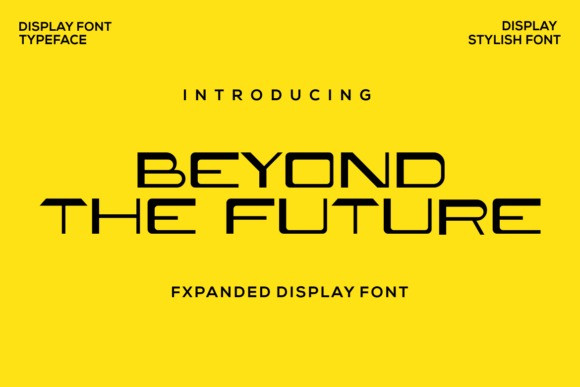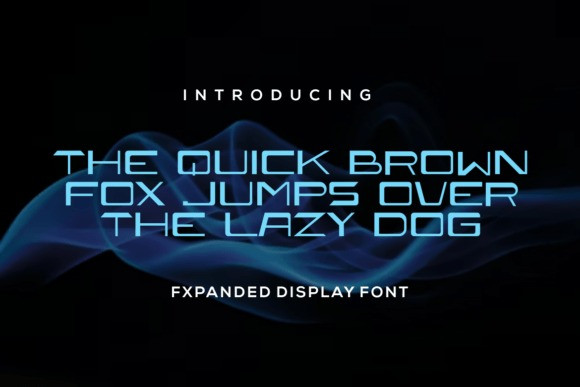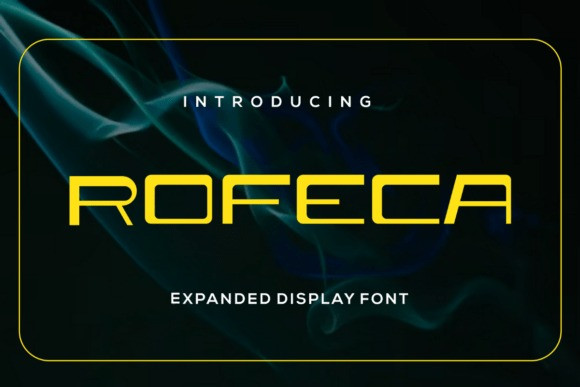
Rofeca Font
Rofeca Font, a bold and stylish expanded display serif font. Designed with strong lines and elegant curves, Veruno is perfect for creating eye-catching titles, branding projects, posters, logos, editorial designs, and modern packaging.
Its unique expanded style gives your typography a professional yet artistic look, making it suitable for both digital and print use.